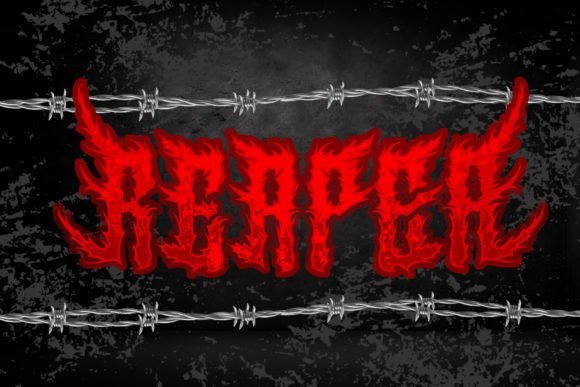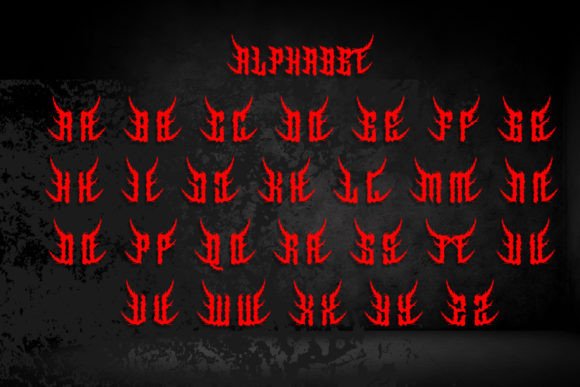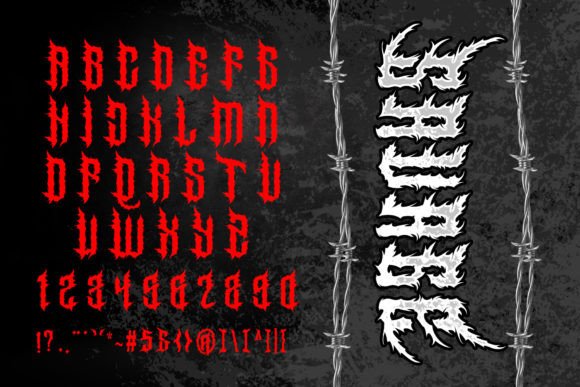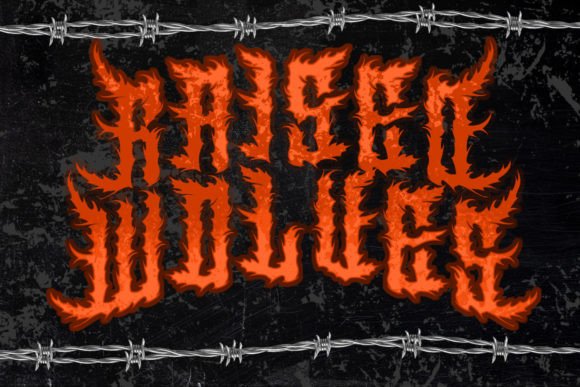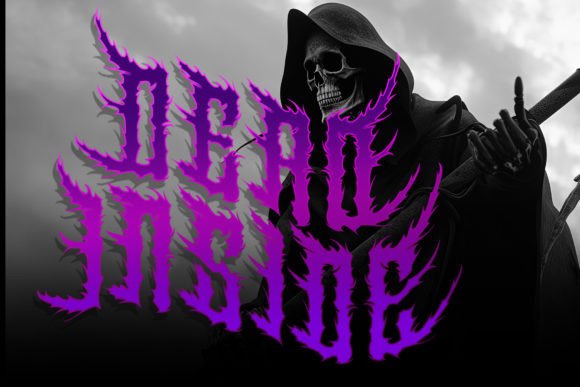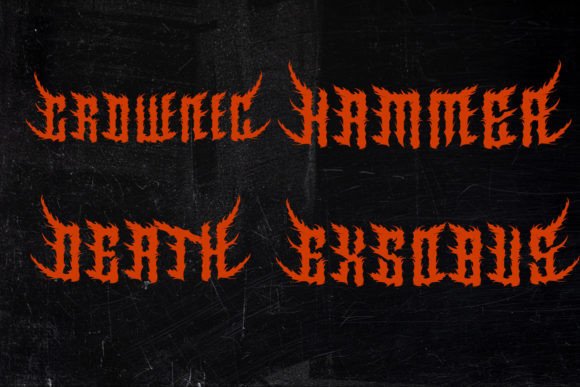
Alesa Font: Unleashing the Horror of the Night
In the realm of typography, few fonts evoke the sense of dread and terror that Alesa Font embodies. This nightmarish metal horror font is designed to send chills down your spine, making it the perfect choice for designers and crafters who dare to venture into the darker side of creativity. With its sharp, twisted edges and blood-soaked texture, Alesa Font captures the essence of terror, demanding attention and leaving a lasting impression.
The Birth of a Nightmare
Alesa Font is more than just a typeface; it’s an experience. Its creation was inspired by the darker corners of the human psyche, where fear and anxiety reside. The font’s designer aimed to craft a visual representation of the terror that lurks in the shadows, taking inspiration from horror movies, metal music, and the supernatural. The result is a font that exudes malevolence, making it an ideal choice for projects that require a bold, eerie presence.
Characteristics of Alesa Font
Alesa Font boasts several distinct features that set it apart from other typefaces:
- Sharp, Twisted Edges: The font’s edges are jagged and irregular, giving it a menacing, organic feel.
- Blood-Soaked Texture: The texture of Alesa Font resembles dried blood, adding to its eerie, unsettling atmosphere.
- Distressed Appearance: The font has a worn, distressed look, as if it’s been ravaged by the forces of darkness.
- High Contrast: Alesa Font features high contrast between thick and thin lines, creating a sense of drama and tension.
Perfect for Haunted Themes and Metal Bands
Alesa Font is tailor-made for projects that require a dark, edgy aesthetic. Some of the most suitable applications for this font include:
- Haunted House Themes: Create eerie, spine-tingling designs for haunted attractions, horror movies, or Halloween events.
- Metal Bands: Alesa Font is perfect for metal band logos, album covers, or merchandise, as it embodies the aggressive, intense spirit of heavy metal music.
- Horror Movie Posters: Use Alesa Font to create eye-catching, terrifying posters for horror movies or TV shows.
- Dark Fantasy Art: Add a touch of darkness to your dark fantasy art, illustrations, or graphic novels with Alesa Font.
Tips for Using Alesa Font
To get the most out of Alesa Font, consider the following tips:
- Use it Sparingly: Alesa Font is bold and attention-grabbing, so use it sparingly to avoid overwhelming your design.
- Combine with Dark Imagery: Pair Alesa Font with dark, eerie imagery to amplify its impact.
- Experiment with Colors: Try using Alesa Font with bold, vibrant colors to create a striking contrast.
- Pay Attention to Kerning: Make sure to adjust the kerning to ensure that the font’s twisted edges don’t clash.
Alesa Font is a nightmarish metal horror font that will add a touch of terror to your designs. With its sharp, twisted edges and blood-soaked texture, it’s perfect for haunted themes, metal bands, and spine-tingling designs that demand attention. So, let the darkness consume your text and unleash the horror with Alesa Font. Whether you’re a designer, crafter, or simply a fan of the dark side, Alesa Font is sure to leave a lasting impression.